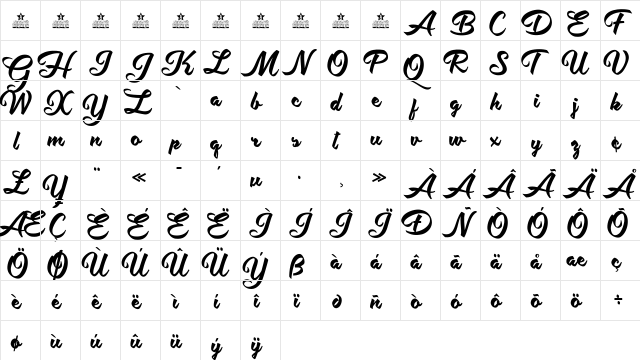
Shity Chats Personal Use Regular
| Foundry | Bily Argel |
| Designer | Billy Argel |
Design Context for Shity Chats Personal Use Typeface
Shity Chats Personal Use is a composed and adaptable typeface that performs quietly and consistently across a wide range of design contexts.